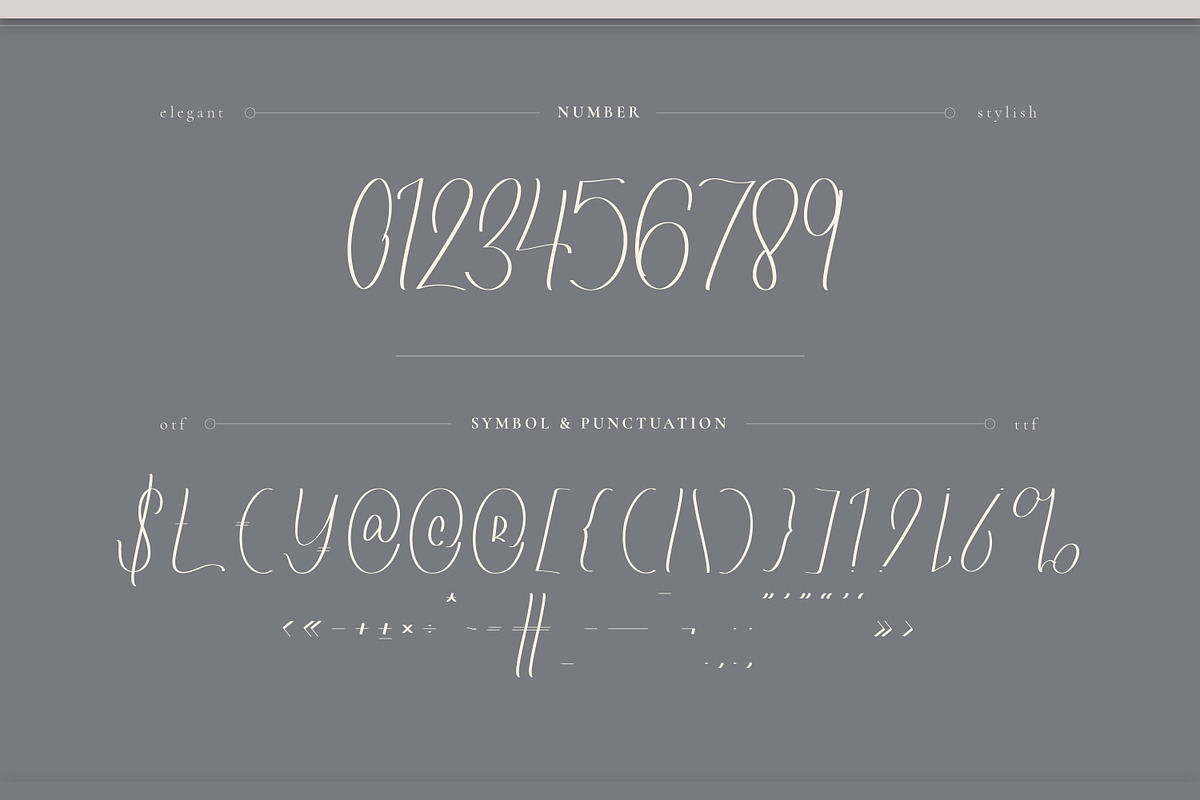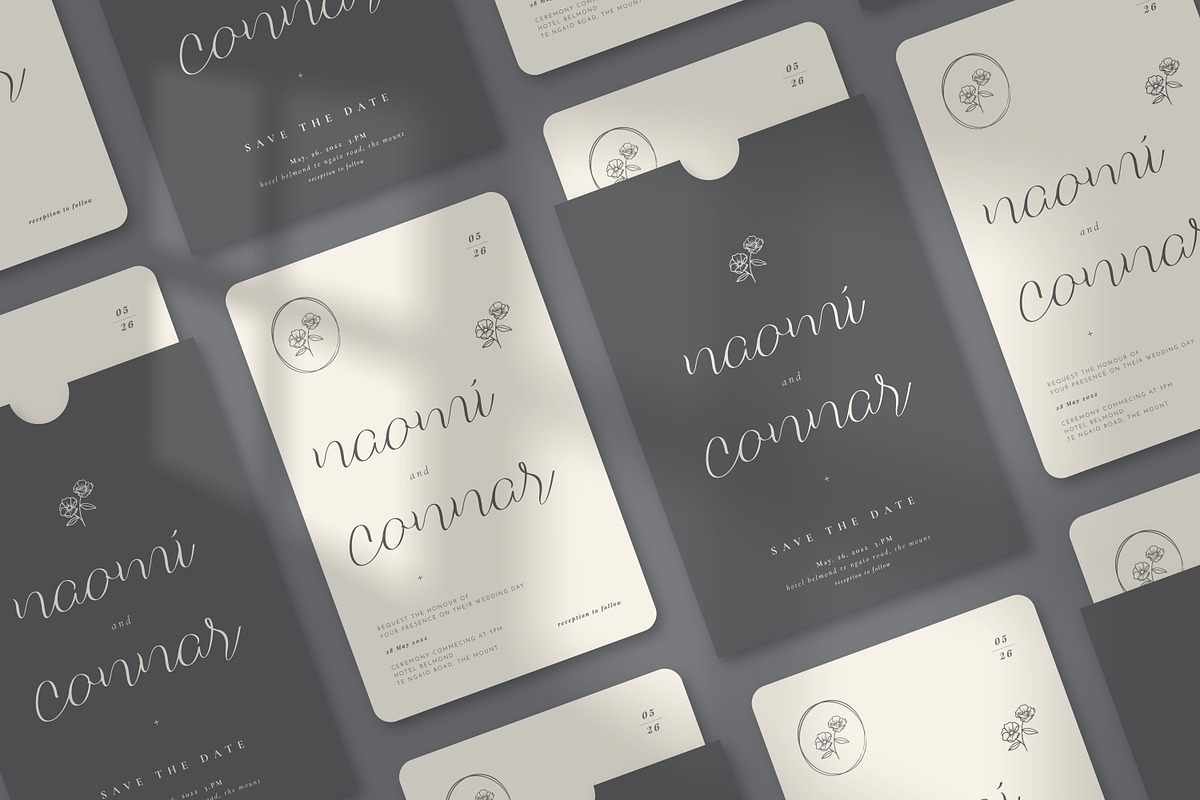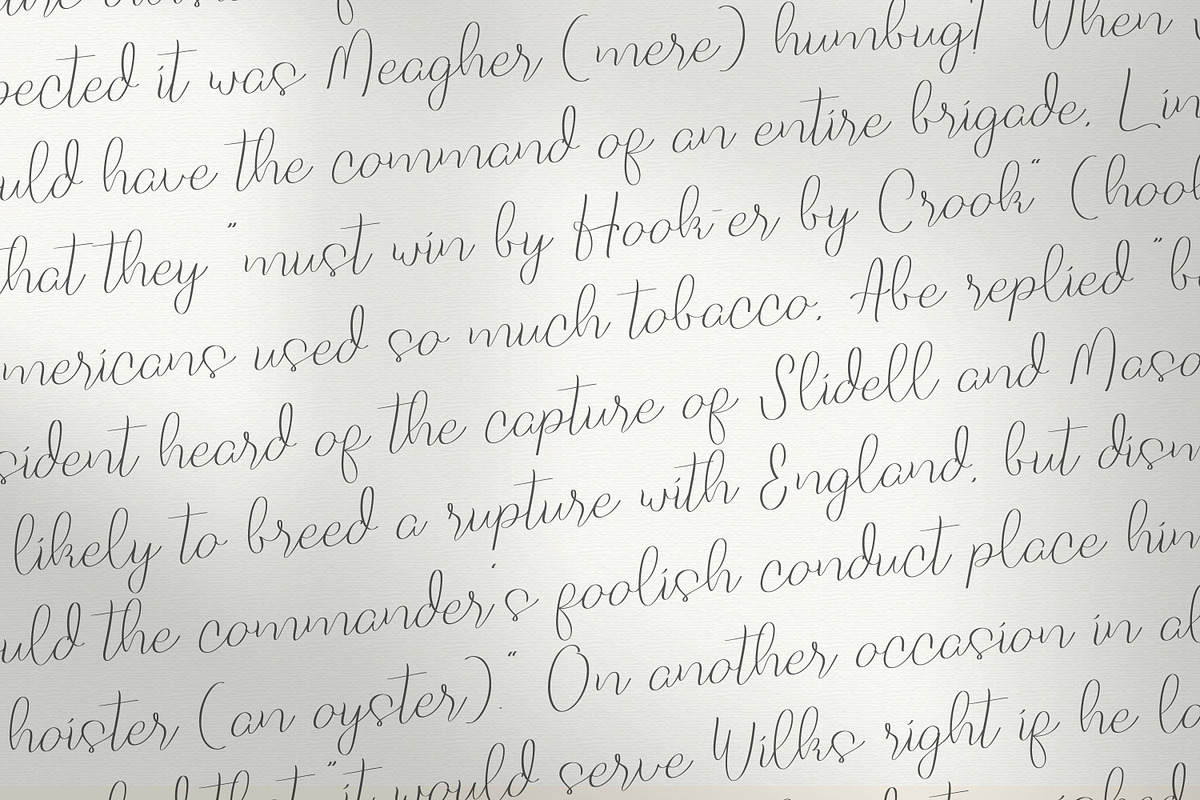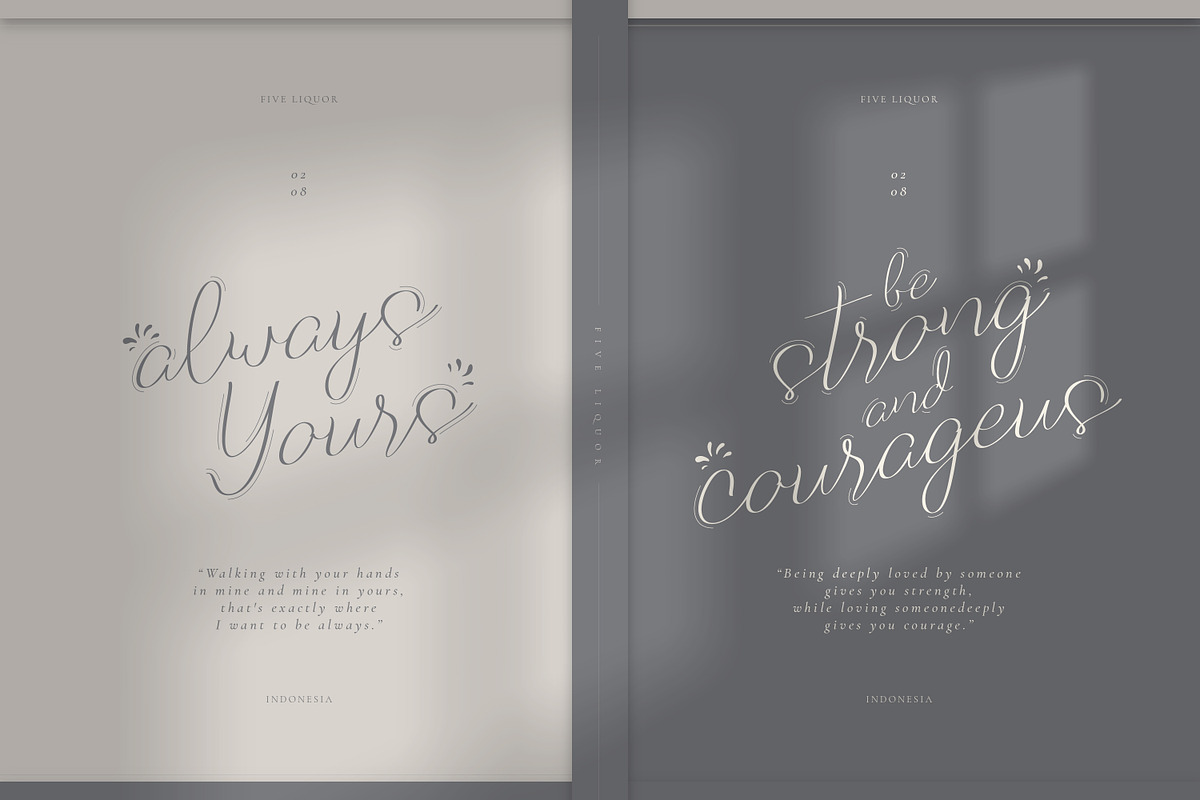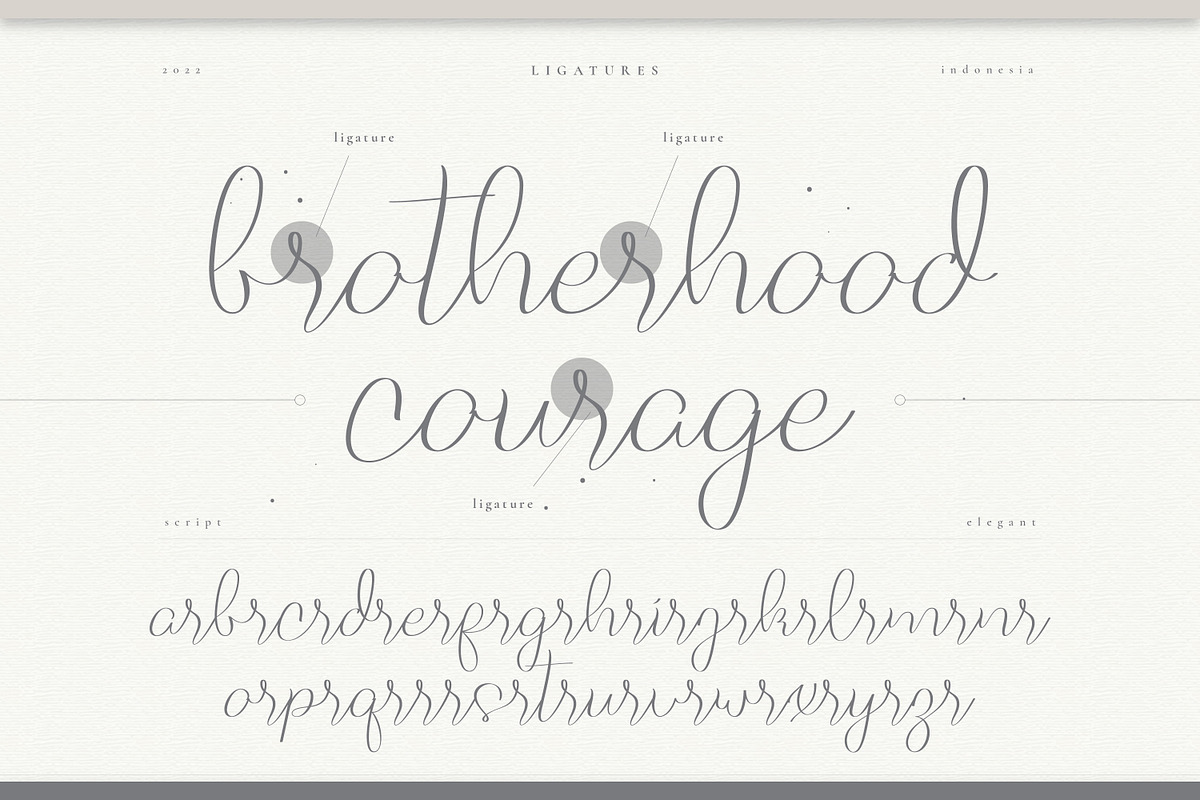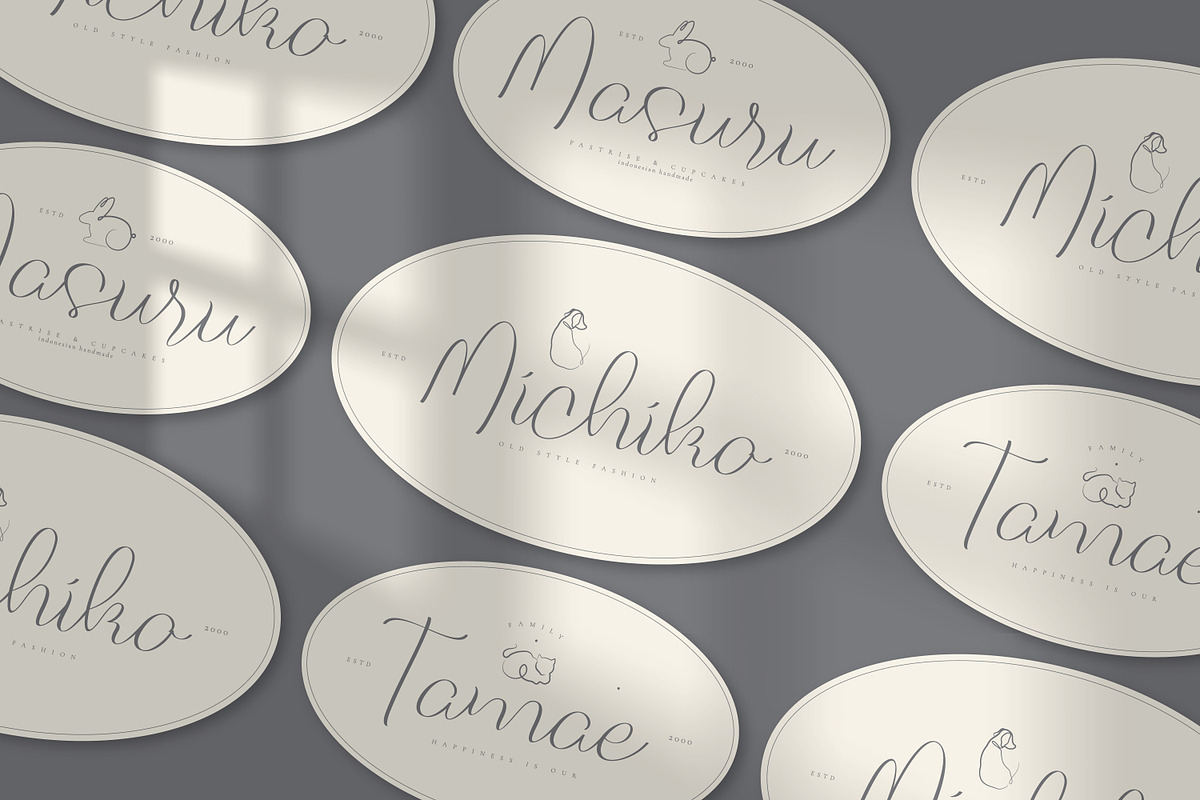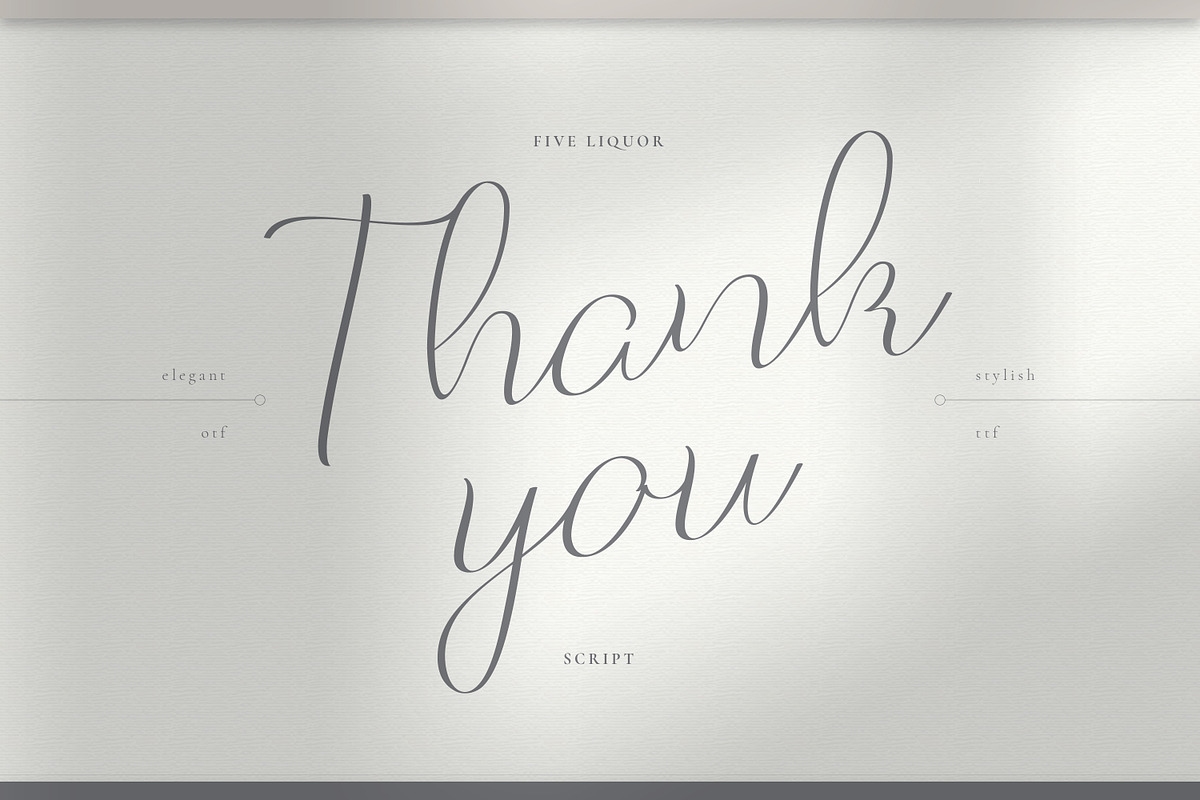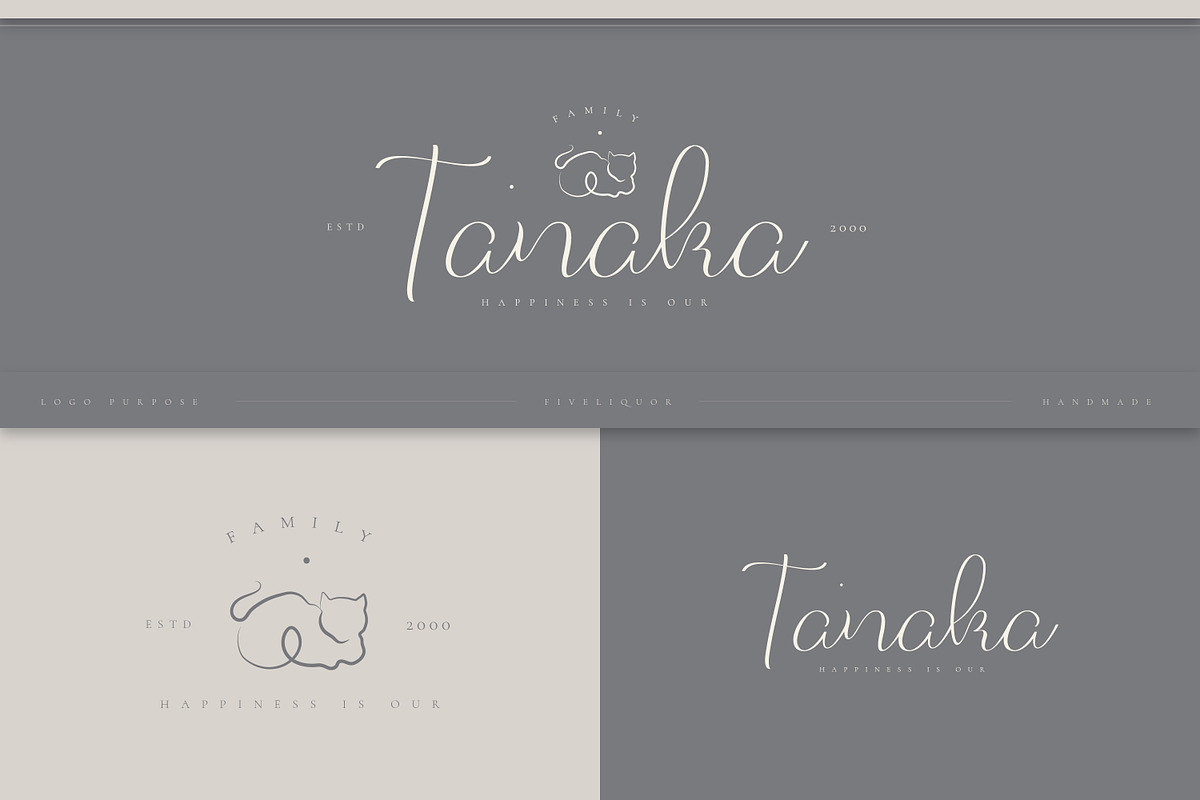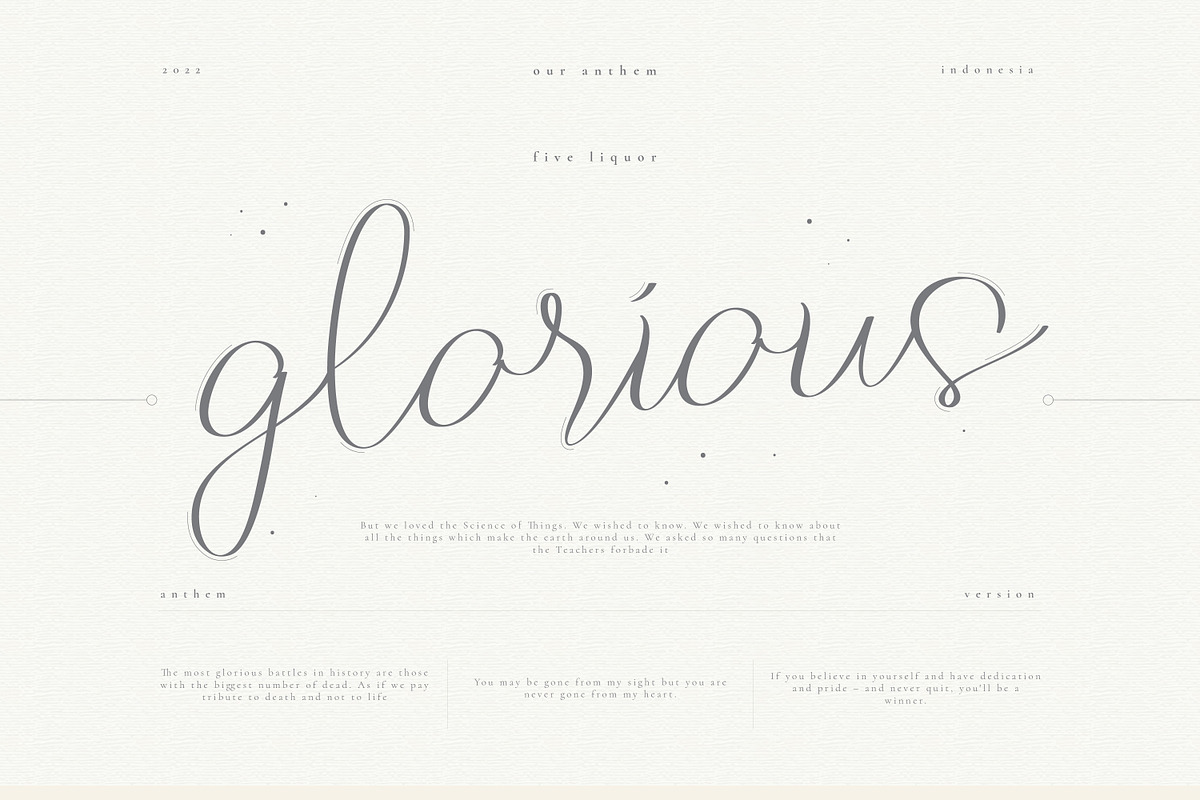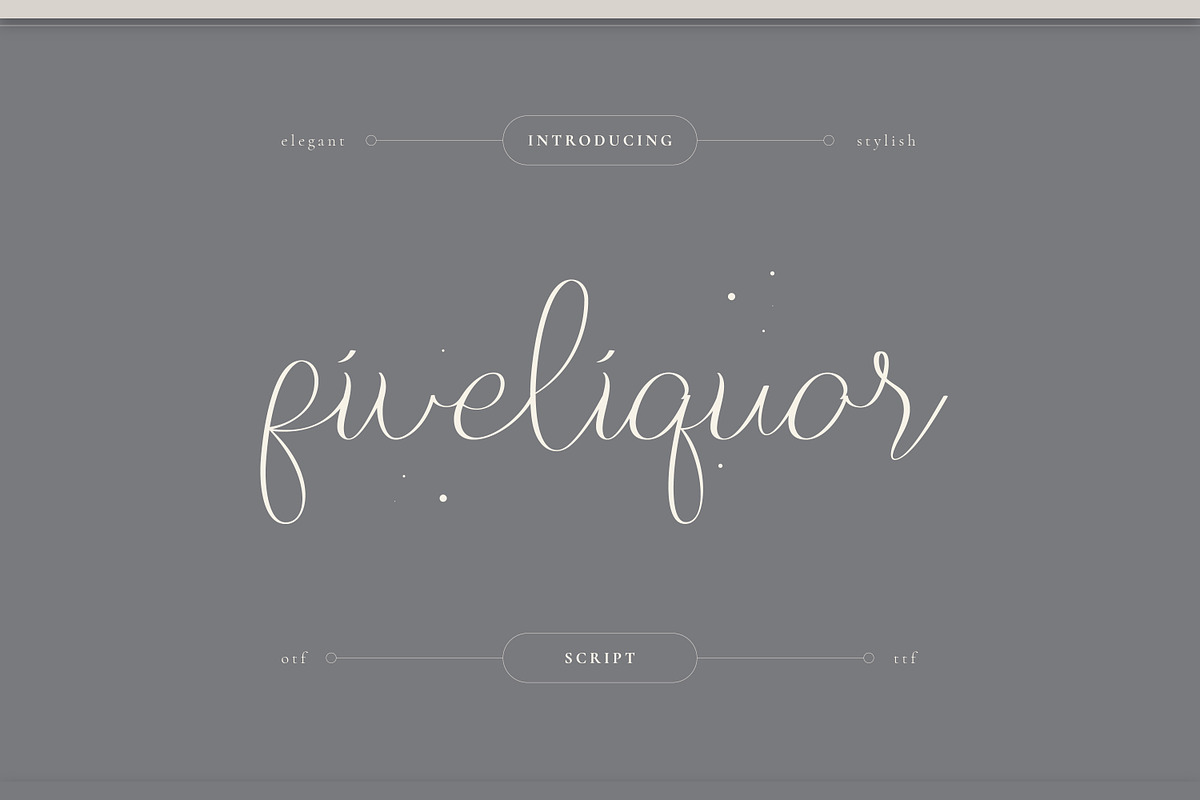
Five Liquor Script Handwritten
Five Liquor, the latest and greatest Script Font Design made in 2022 from us. Created with the best and special mash and brush, made it has extraordinary shape and consistency. Bring the floral, elegant, eternal, classic and authentic handwritten, this font is perfect fit for the wedding projects, posters, logos, branding, and more design projects. It will make the design look more simple but eye catching. Five Liquor is the best font to created your masterpieces.